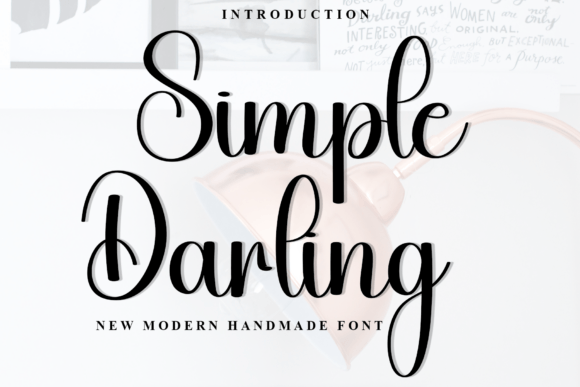
Discover the Charm of Simple Darling Font: Elevate Your Designs with a Unique Touch
In the world of typography, fonts play a crucial role in conveying messages, expressing emotions, and creating visual identities. Among the numerous fonts available, Simple Darling stands out for its distinctive and captivating design. This beautiful font, crafted with a soft and unique touch, has been gaining popularity among designers, artists, and creative professionals. In this article, we’ll explore the features, benefits, and applications of Simple Darling Font, and how it can elevate your designs to new heights.
The Unique Characteristics of Simple Darling Font
Simple Darling Font boasts a range of distinctive strokes that give it a special character, making it both meaningful and versatile. Its unique design elements set it apart from other fonts, allowing it to add a touch of elegance and sophistication to any design project. Whether you’re working on a logo, branding materials, or digital content, Simple Darling Font is sure to make a lasting impression.
One of the standout features of Simple Darling Font is its varied character set. The font includes a range of characters, ensuring that you have the perfect combination to convey your message. From bold and striking to delicate and refined, Simple Darling Font offers a versatility that makes it suitable for a wide range of design projects.
Applications of Simple Darling Font
Simple Darling Font is an incredibly versatile font, suitable for various design projects, crafts, and creative works. Its natural font style makes it an excellent choice for:
- Logo design and branding
- Digital content creation (social media graphics, blog posts, etc.)
- Print materials (business cards, brochures, etc.)
- Crafts and DIY projects
- Artistic and creative projects
The Benefits of Using Simple Darling Font
So, why choose Simple Darling Font for your design projects? Here are just a few benefits:
- Unique and eye-catching design: Simple Darling Font adds a touch of elegance and sophistication to any design project.
- Versatility: Suitable for a wide range of design projects, from logos to digital content.
By incorporating Simple Darling Font into your design projects, you’ll be able to create visually appealing and engaging content that resonates with your audience.
Tips for Using Simple Darling Font Effectively
To get the most out of Simple Darling Font, here are a few tips:
- Experiment with font sizes and styles: Find the perfect combination to convey your message.
- Pair with complementary fonts: Create a harmonious and balanced design.
- Use in combination with images and graphics: Add depth and visual interest to your design.
- Keep it simple: Don’t overcomplicate your design – Simple Darling Font is perfect for minimalist designs.
By following these tips, you’ll be able to unlock the full potential of Simple Darling Font and create stunning design projects.
In conclusion, Simple Darling Font is a beautiful and eye-catching font that offers a unique touch to any design project. Its versatility, compatibility, and ease of use make it an excellent addition to any font collection. Whether you’re a professional designer or a DIY enthusiast, Simple Darling Font is sure to elevate your designs and make them appealing to a wide range of audiences.